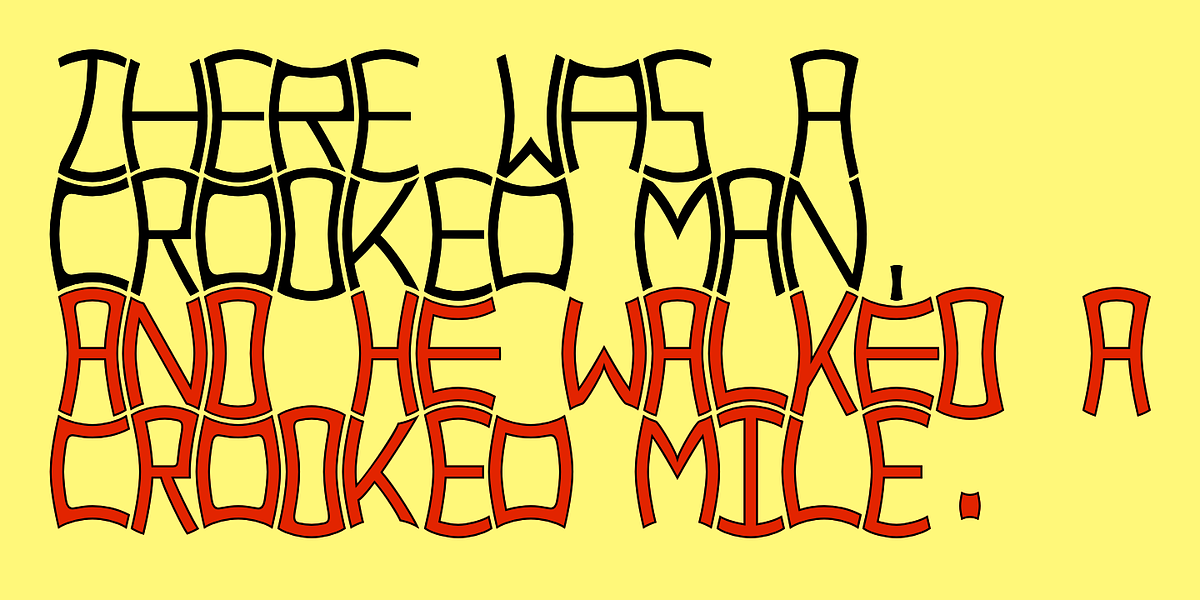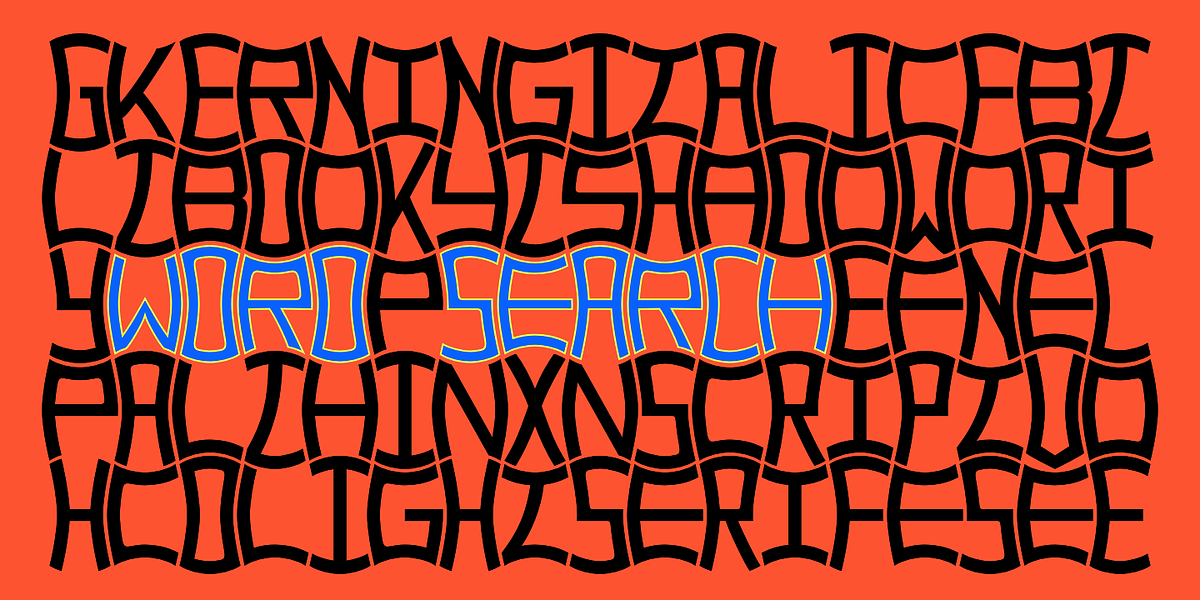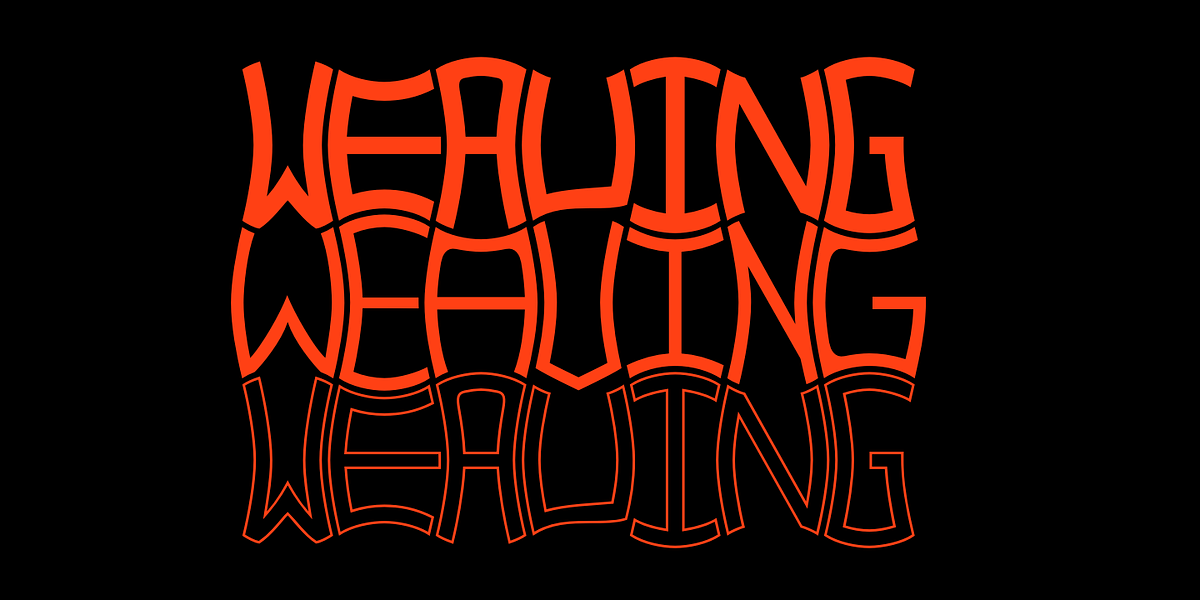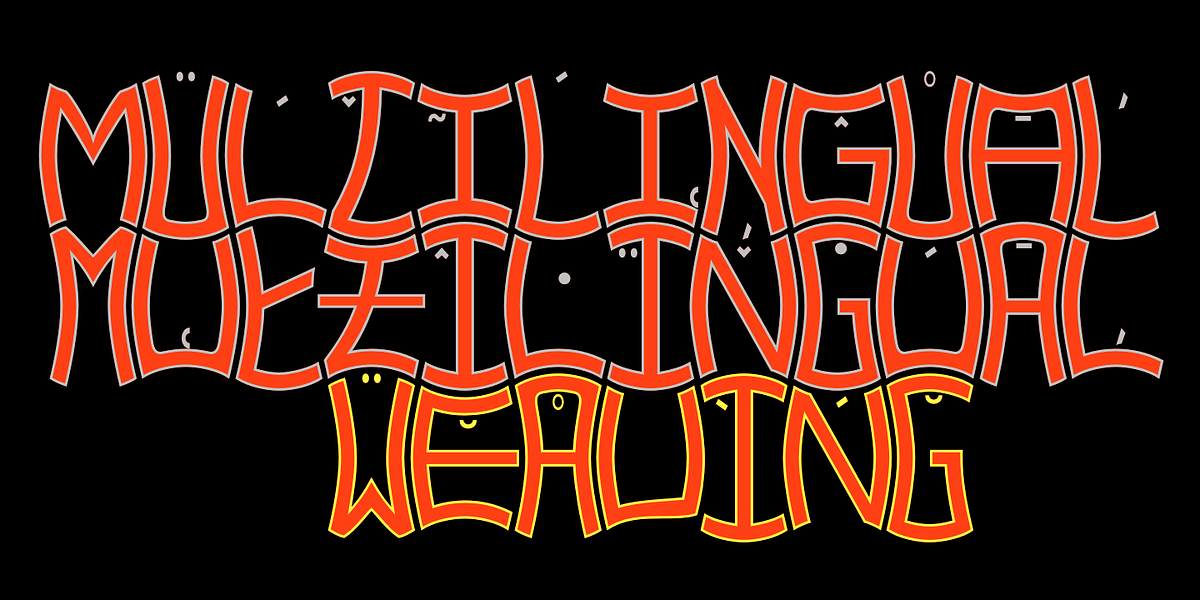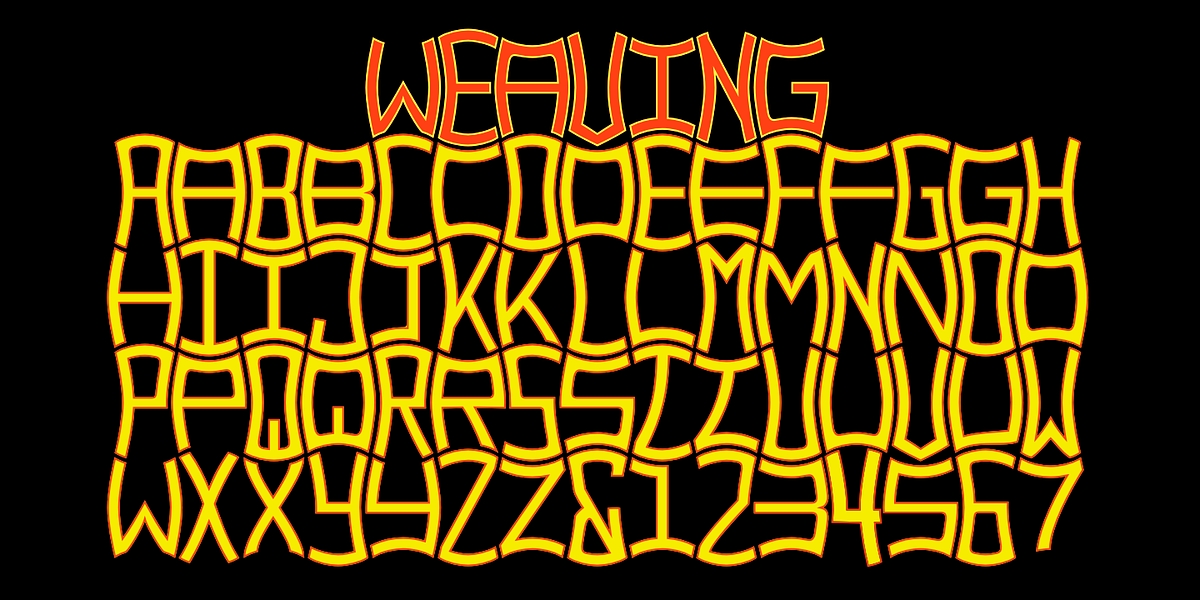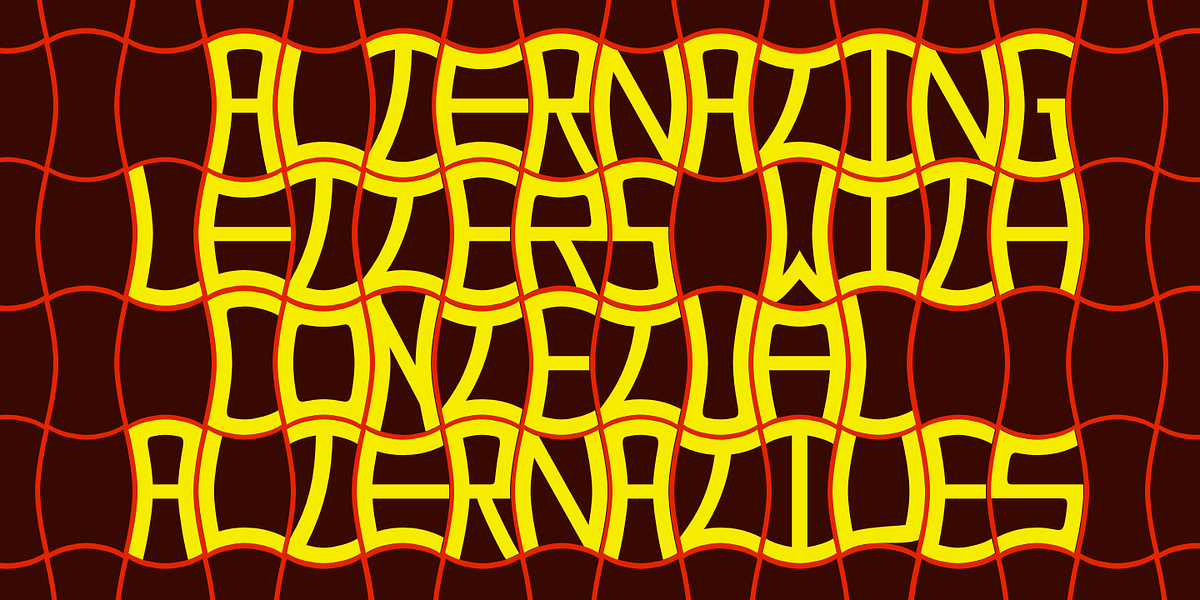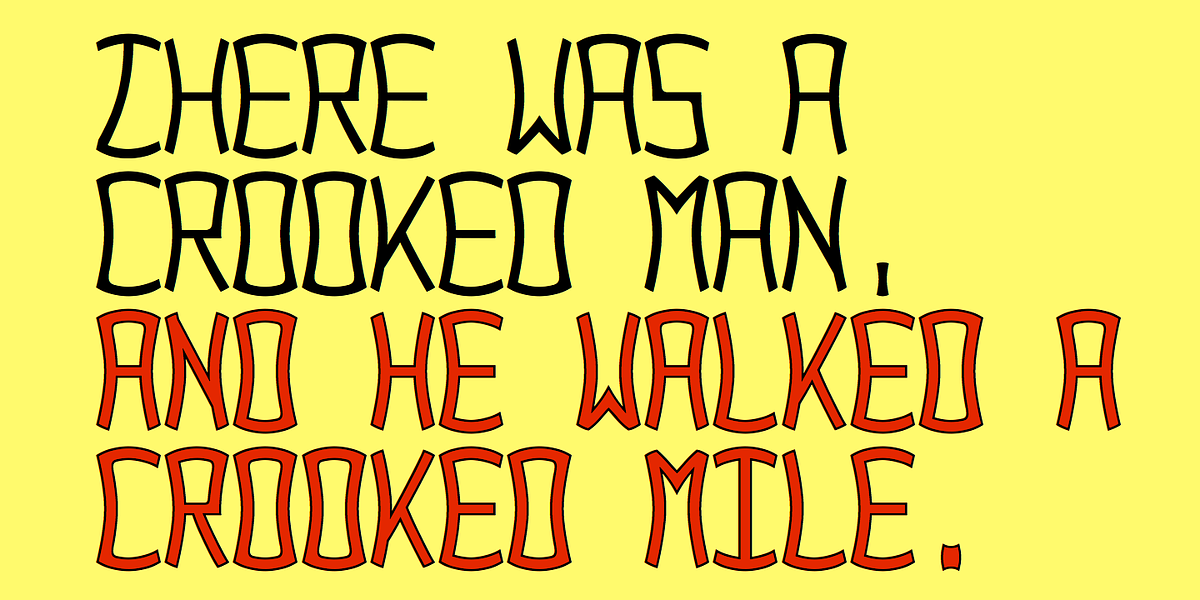
Weaving
Weaving is a thin, condensed display typeface characterized by its unique interlocking design. The letters are separated by wavy lines, creating a visually intriguing effect. This font utilizes OpenType contextual alternatives to automatically alternate uppercase and lowercase letters, enhancing the interlocking pattern. While Weaving is a decorative typeface suitable for headlines, branding, and posters, its unconventional nature leaves room for creative exploration in finding further applications.